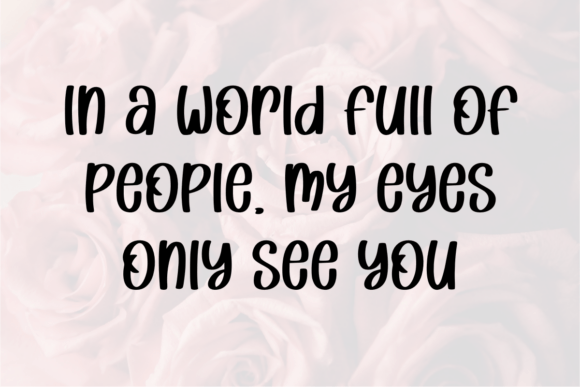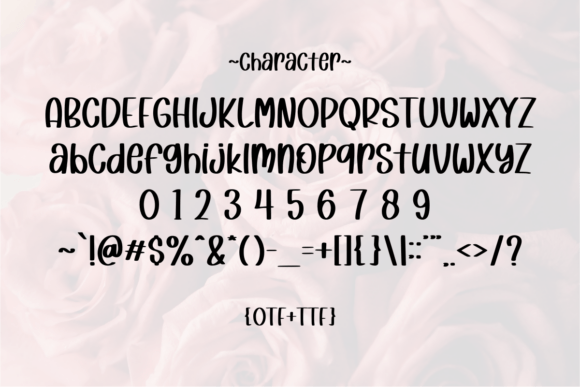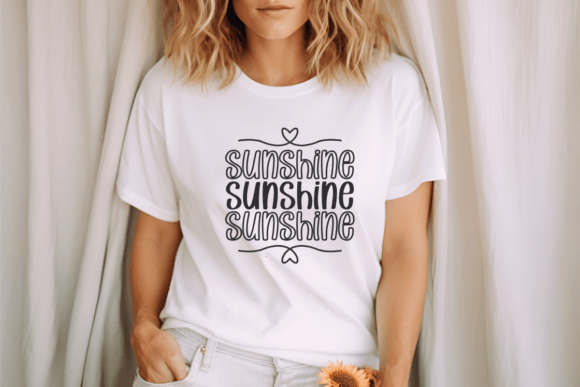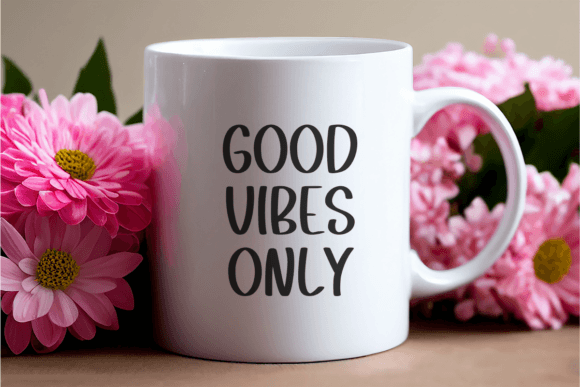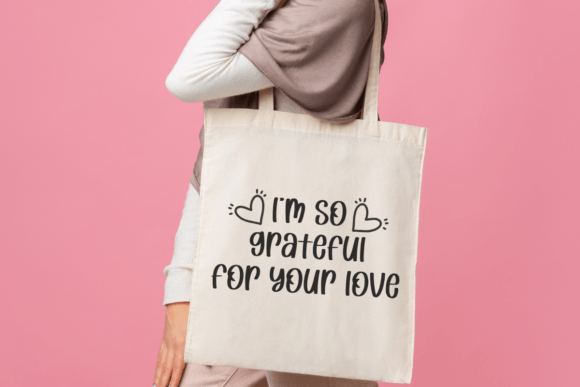
Introduction to Romantic Gateway Font
As you sit at your desk, surrounded by scraps of paper, glue, and glitter, the excitement of a new creative project washes over you. You’re about to bring a special idea to life – a handmade Valentine’s Day card for your loved one, a customized necklace with a heartfelt message, or a fun design for your child’s journal. Whatever your project, you know that the right font can make all the difference. That’s where the Romantic Gateway Font comes in – a beautiful, free download that’s perfect for adding a touch of whimsy and romance to your design.
As a valuable resource for designers, the Romantic Gateway Font offers a high-quality, versatile choice for a wide range of creative endeavors. With its naturally flowing strokes and subtle artistic touches, it’s an ideal companion for any project that requires a delicate balance of style and charm. Whether you’re working on a free download or a commercial design, this font is sure to impress.
Key Features of Romantic Gateway Font
- High-quality design: Romantic Gateway Font is a beautiful, elegant script font perfect for creative projects.
- Large character set: This font includes a wide range of characters, including uppercase and lowercase letters, numbers, and punctuation marks.
- Unique, hand-drawn style: This font features a unique, hand-drawn style that adds a touch of elegance and sophistication to any design project.
Honest Review: Romantic Gateway Font
I recently stumbled upon the Romantic Gateway Font, and I’m excited to share my thoughts on this beautiful design resource. The moment I downloaded it, I knew I had to dive in and explore its features.
What works well: ✨ The Romantic Gateway Font is available for free download, which is always a bonus for designers on a budget. The high-quality design and transparent background make it perfect for any creative project that requires a touch of elegance. The font’s romantic and whimsical feel will add a lovely touch to wedding invitations, birthday cards, or any other design that needs a soft, feminine vibe.
- High-quality design: The Romantic Gateway Font is beautifully crafted and will elevate any design project.
However, there are a few limitations to consider: ⚠️ The font is not as versatile as some other design resources, and it may not be suitable for projects that require a bold, modern feel. Additionally, the font’s romantic and whimsical feel may not be to everyone’s taste.
Overall, I’m impressed with the Romantic Gateway Font, and I think it’s a great addition to any designer’s toolkit. With its high-quality design and transparent background, it’s perfect for creative projects that need a touch of romance and elegance.
Romantic Gateway Font
What is Romantic Gateway Font?
The Romantic Gateway Font is a beautiful, high-quality design resource perfect for creative projects that require a touch of elegance and sophistication. This font features a transparent background, making it easy to customize and integrate into your design.
Getting the Most Out of Romantic Gateway Font
To get the most out of this font, use it for creative projects that require a touch of romance and elegance. Some common use cases include:
- Birthday and anniversary cards